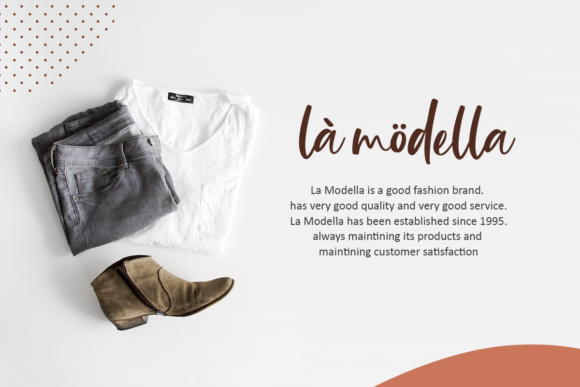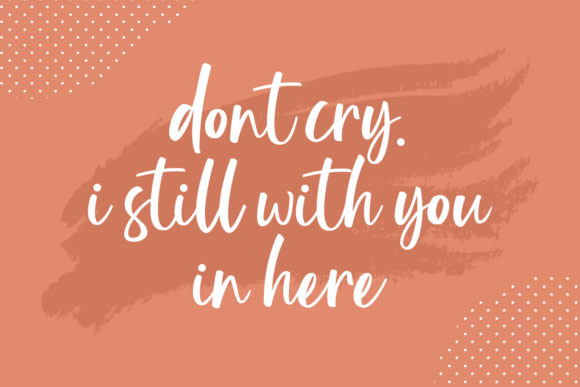
The Blindsay Font: A Quirky, Handwritten Gem for Creative Projects
I’ll never forget the design project that led me to discover the Blindsay font. I was working on a whimsical branding campaign for a new craft bakery, and I was struggling to find the perfect handwritten font to capture the brand’s playful personality. That’s when I stumbled upon Blindsay, and it instantly became the star of the show. In this article, I’ll share my love for this enchanting font, its unique features, and how to make the most of it in your creative projects.
An Honest Review of Blindsay Font
What I Love About Blindsay ✨
- 💫 Unique, quirky personality that adds a touch of whimsy to any design
- 🎨 Versatile and adaptable to various design styles and industries
- 🔥 Supports OpenType features, glyphs, and stylistic alternates for added creativity
- ⚠️ Some characters may require manual kerning for optimal spacing
- ⚠️ Limited availability of extended language support
Exploring OpenType Features, Glyphs, and Stylistic Alternates
One of the standout features of Blindsay is its support for OpenType features, glyphs, and stylistic alternates. These features allow you to add more creativity and personality to your text designs. Here are a few tips for using these features:
- Use ligatures to connect letters and create a more fluid, handwritten look
- Experiment with stylistic alternates to add more variety and interest to your text
- Access glyphs to add decorative elements, such as swashes or ornaments, to your design
The Designer Inspiration Behind Blindsay
The Blindsay font was created with the intention of capturing the essence of playful, handwritten typography. The designer, inspired by the imperfections and quirks of handwriting, aimed to create a font that would add a touch of whimsy to any design. The result is a font that’s both elegant and quirky, perfect for creative projects that require a unique personality.
Q: What type of projects is Blindsay best suited for?
A: Blindsay is versatile and can be used for a wide range of projects, from branding and packaging to invitations and social media graphics.